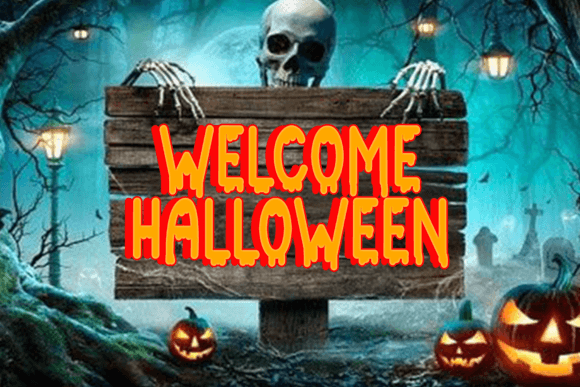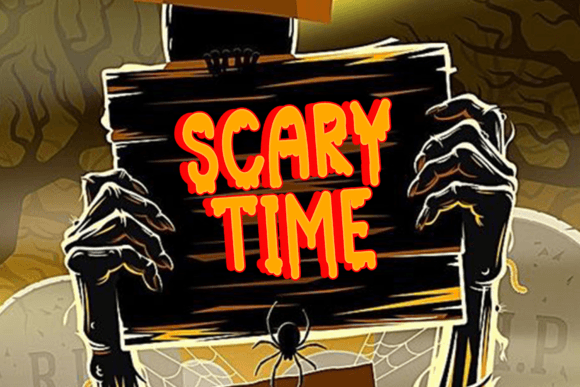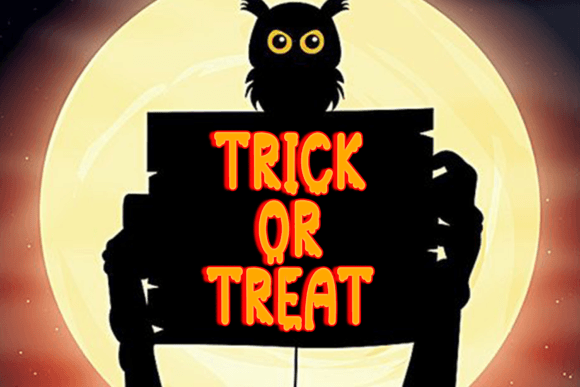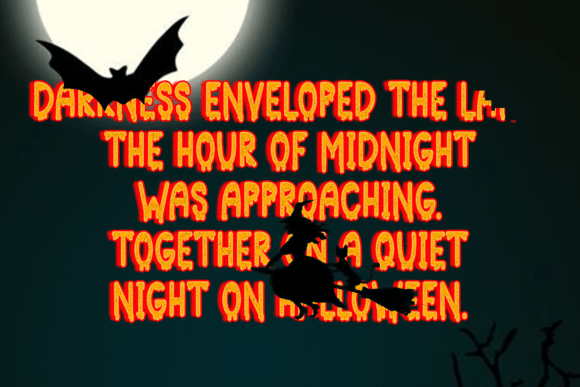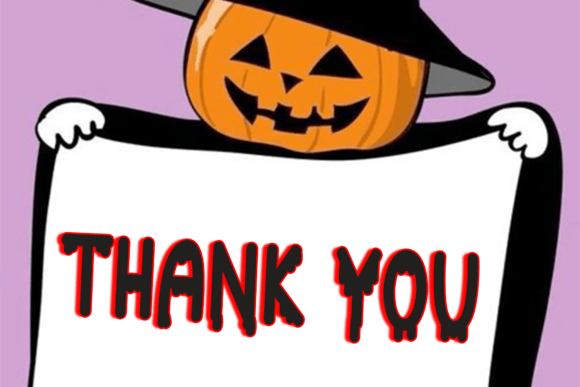
Unleash the Spooky Spirit: Elevate Your Halloween Party with the Ultimate Font
Are you ready to throw a Halloween party that’s to die for? Look no further! A spooky and eye-catching font can make all the difference in creating an unforgettable experience for your guests. Introducing the Halloween Party Font, an incredibly unique and spooky display font that’s sure to become a true favorite among designers and crafters.
The Perfect Font for Your Spooky Celebrations
Halloween Party Font is masterfully designed to bring each of your creative ideas to the highest level. With its bold and playful style, this font is perfect for creating eye-catching invitations, decorations, and marketing materials for your Halloween party. Whether you’re a designer, crafter, or simply a Halloween enthusiast, this font is sure to inspire you to create something truly special.
Key Features of the Halloween Party Font
- Unique and Spooky Design: The Halloween Party Font features a one-of-a-kind design that’s sure to stand out from the crowd. Its bold and playful style is perfect for creating a spooky and festive atmosphere.
- Highly Versatile: This font is perfect for a wide range of applications, from invitations and decorations to social media graphics and marketing materials.
Ideas for Using the Halloween Party Font
The possibilities are endless when it comes to using the Halloween Party Font. Here are a few ideas to get you started:
- Halloween Party Invitations: Create spooky and eye-catching invitations that set the tone for an unforgettable Halloween party.
- Decorations and Signage: Use the Halloween Party Font to create festive decorations and signage that will add a touch of spooky charm to your party.
- Social Media Graphics: Create eye-catching social media graphics that will help promote your Halloween party and get people in the mood for some spooky fun.
- Crafting and DIY Projects: Use the Halloween Party Font to add a personal touch to your crafting and DIY projects, such as Halloween-themed cards, gift tags, and more.
Tips for Getting the Most Out of the Halloween Party Font
Here are a few tips for getting the most out of the Halloween Party Font:
- Experiment with Different Colors and Textures: Don’t be afraid to experiment with different colors and textures to add depth and interest to your designs.
- Combine with Other Fonts: Try combining the Halloween Party Font with other fonts to create a unique and eye-catching look.
- Use in Combination with Images: Use the Halloween Party Font in combination with images and graphics to create a visually appealing design.